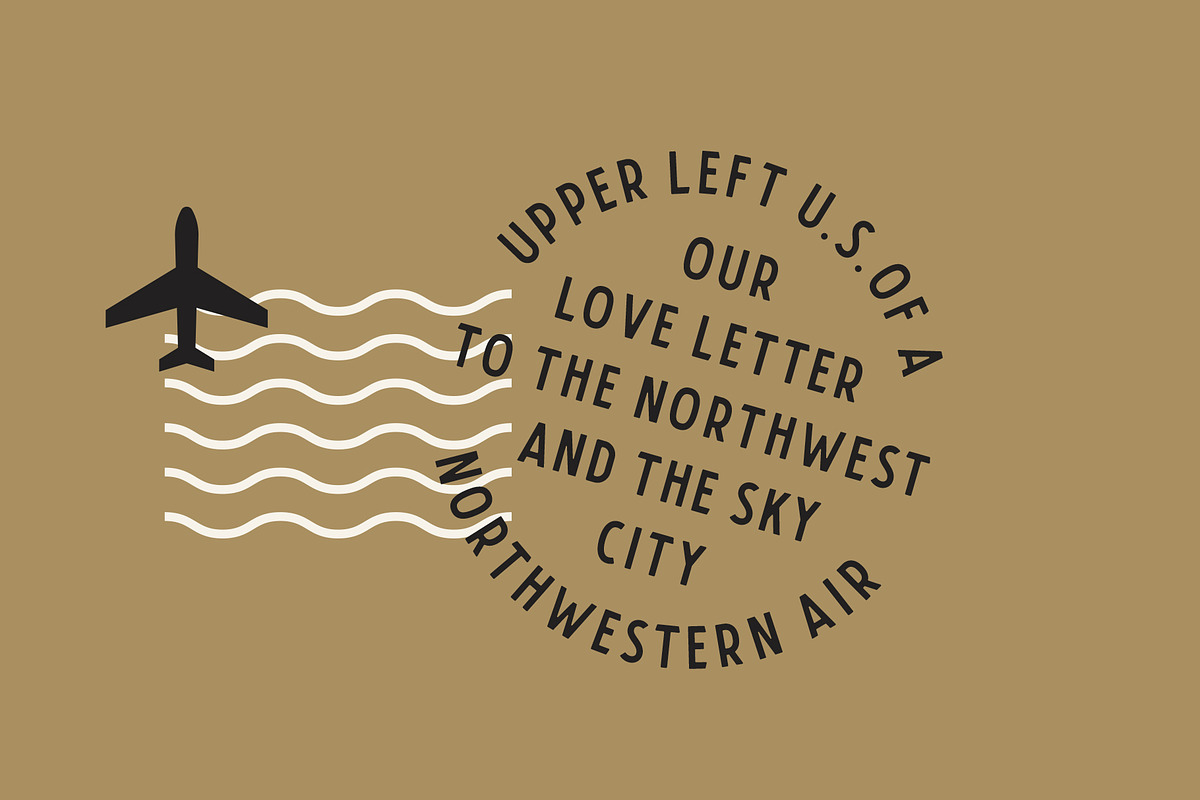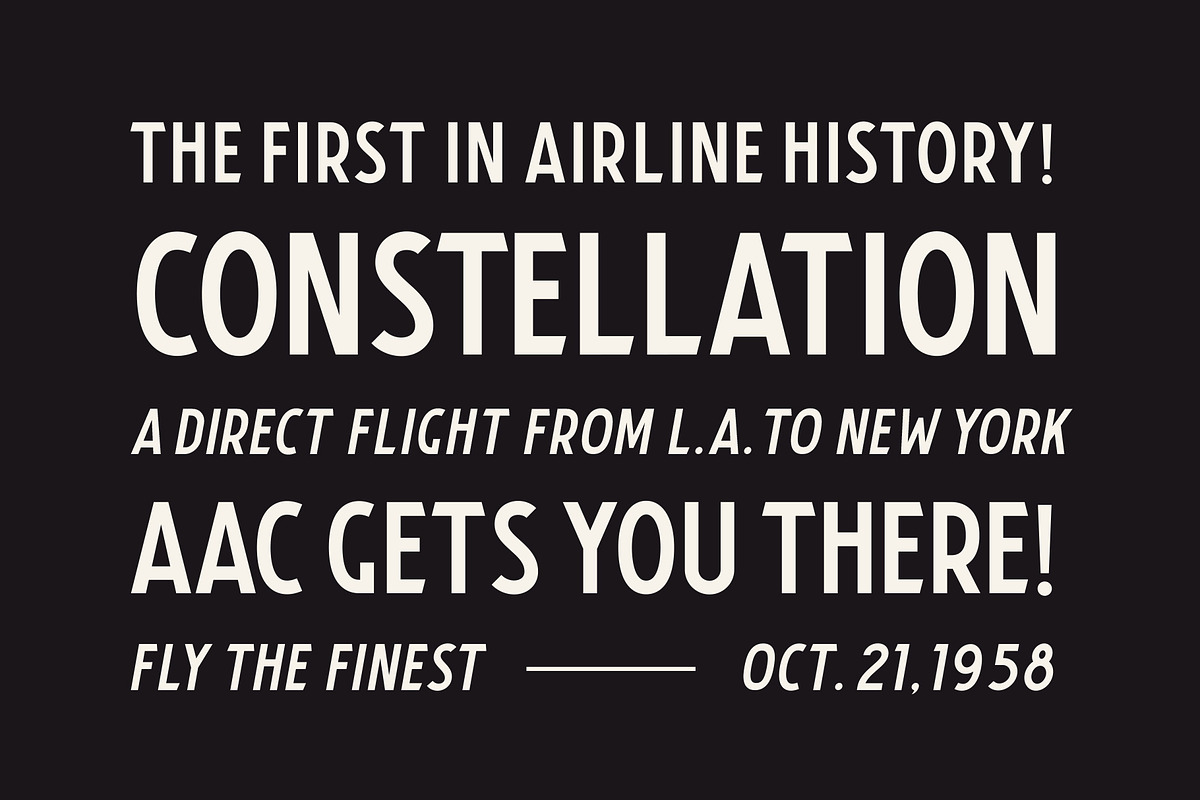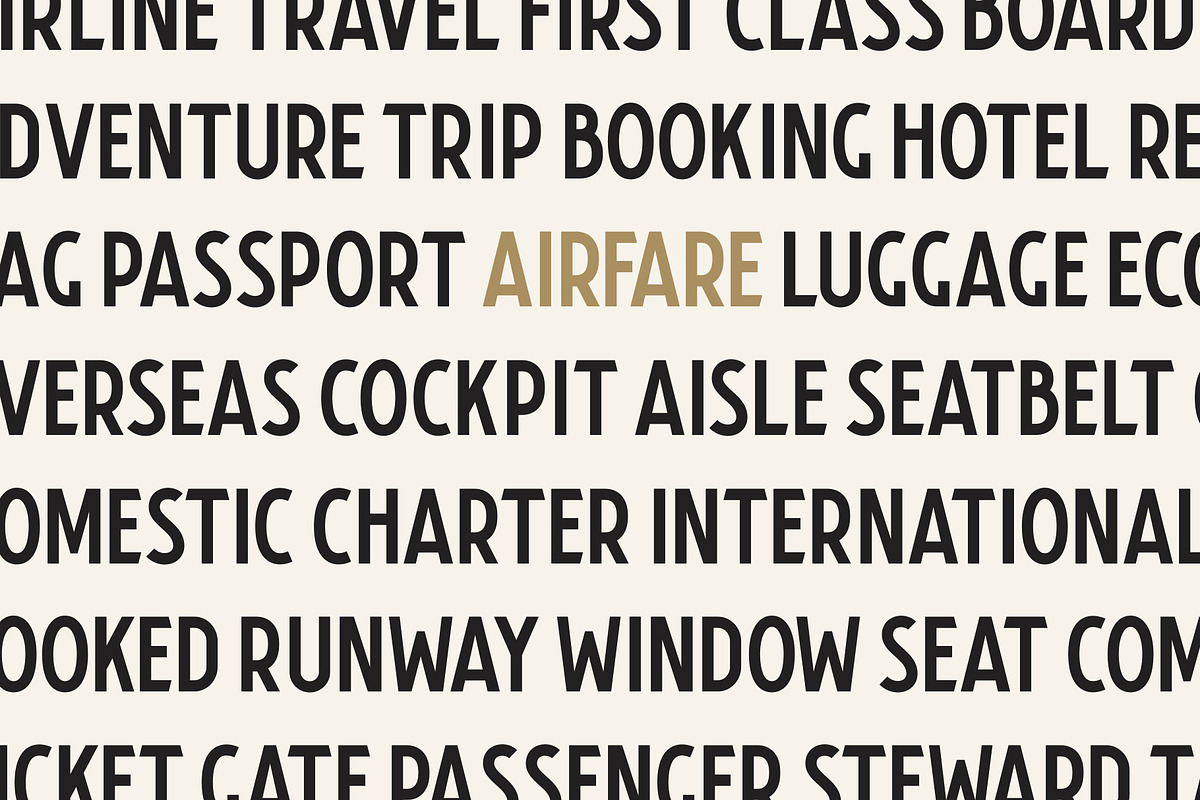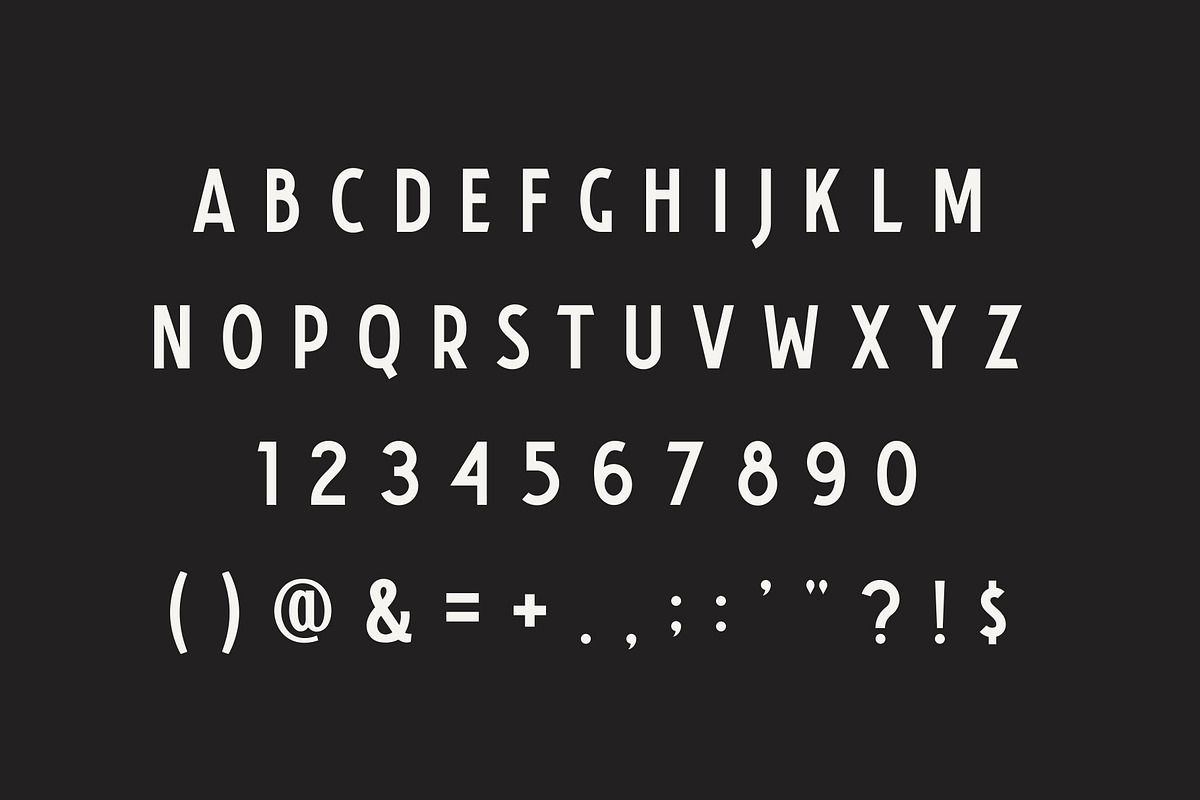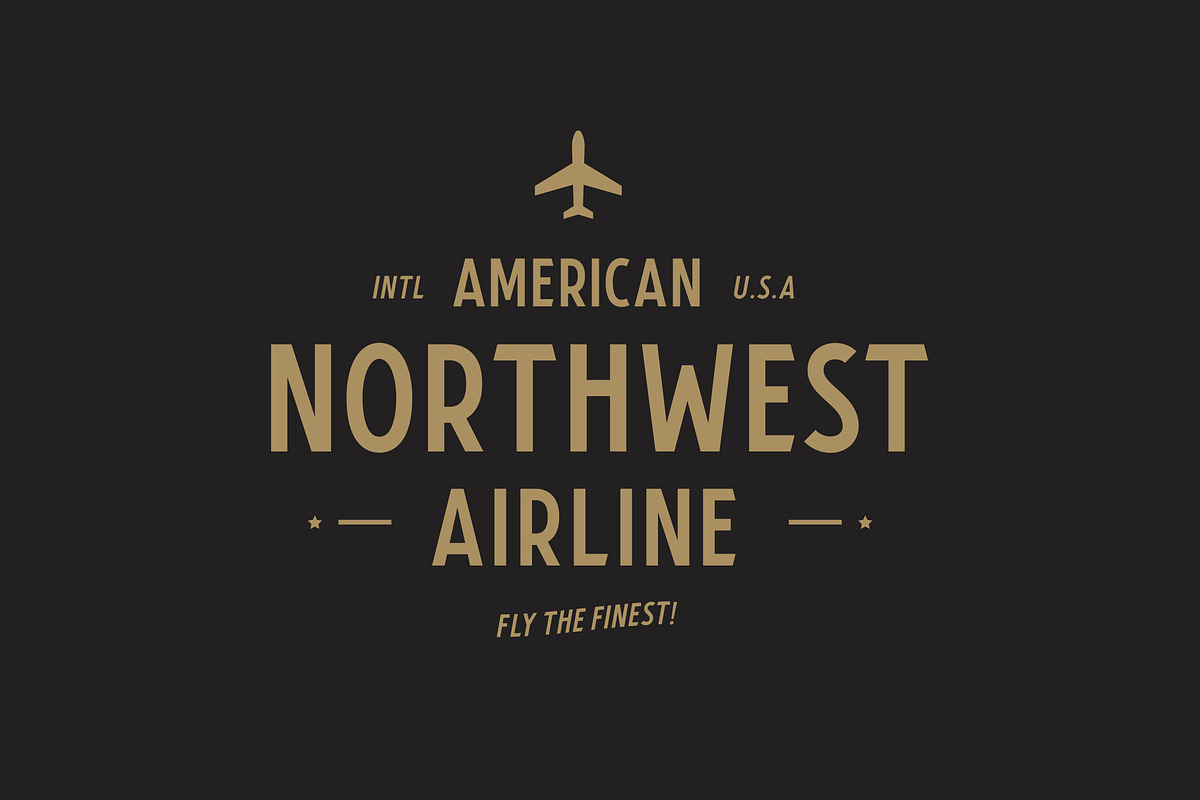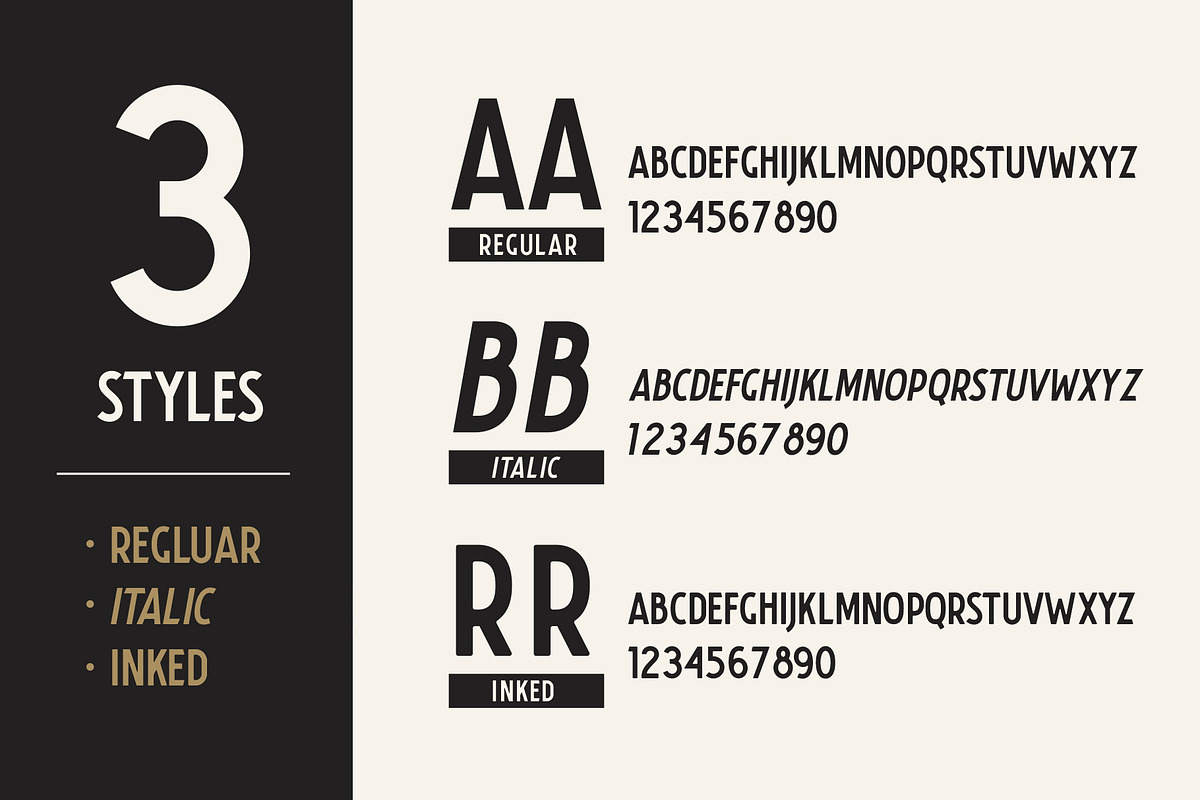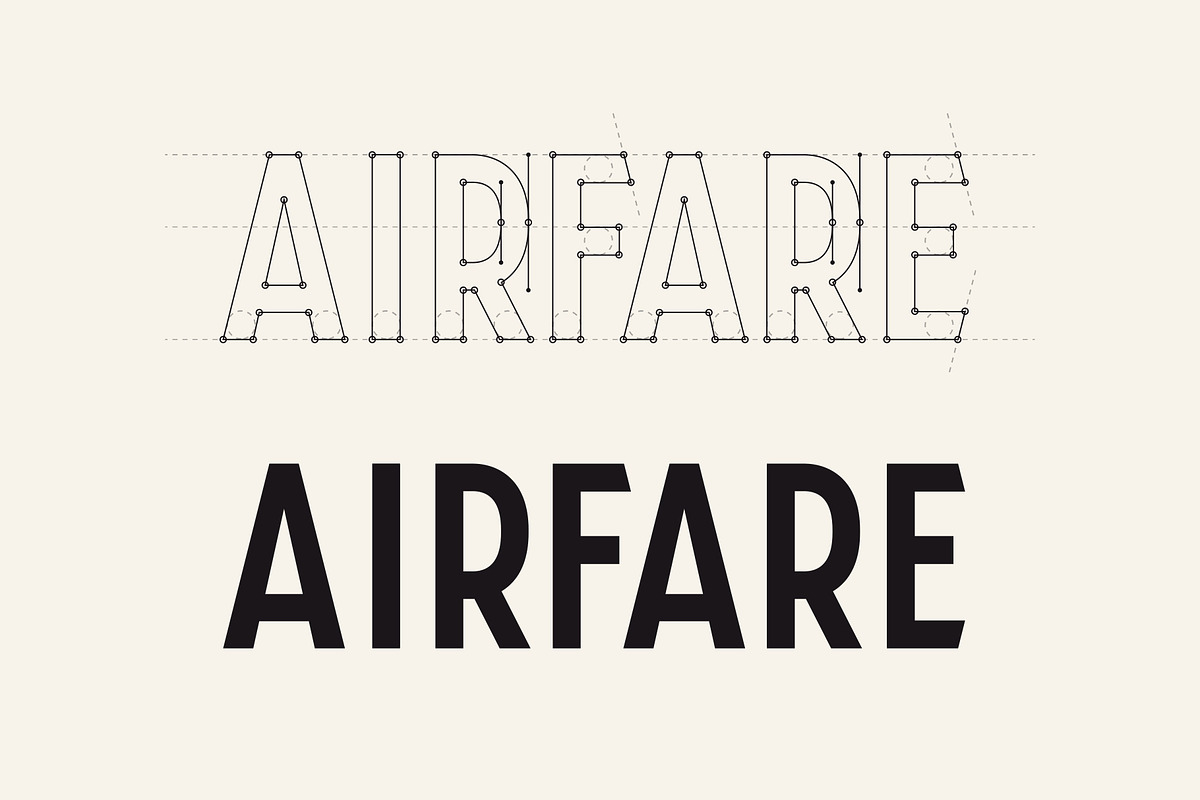
Airfare Font
Vintage, bold, and sharp, Airfare is a beautifully adaptable font great for a variety of applications. Robust capitals set with a number of alterations are redolent of the 1950s with a sleek modern build and monoline construction.
3 Variations including regular, italic, and inked
- Airfare Regular
- Airfare Italic
- Airfare Inked